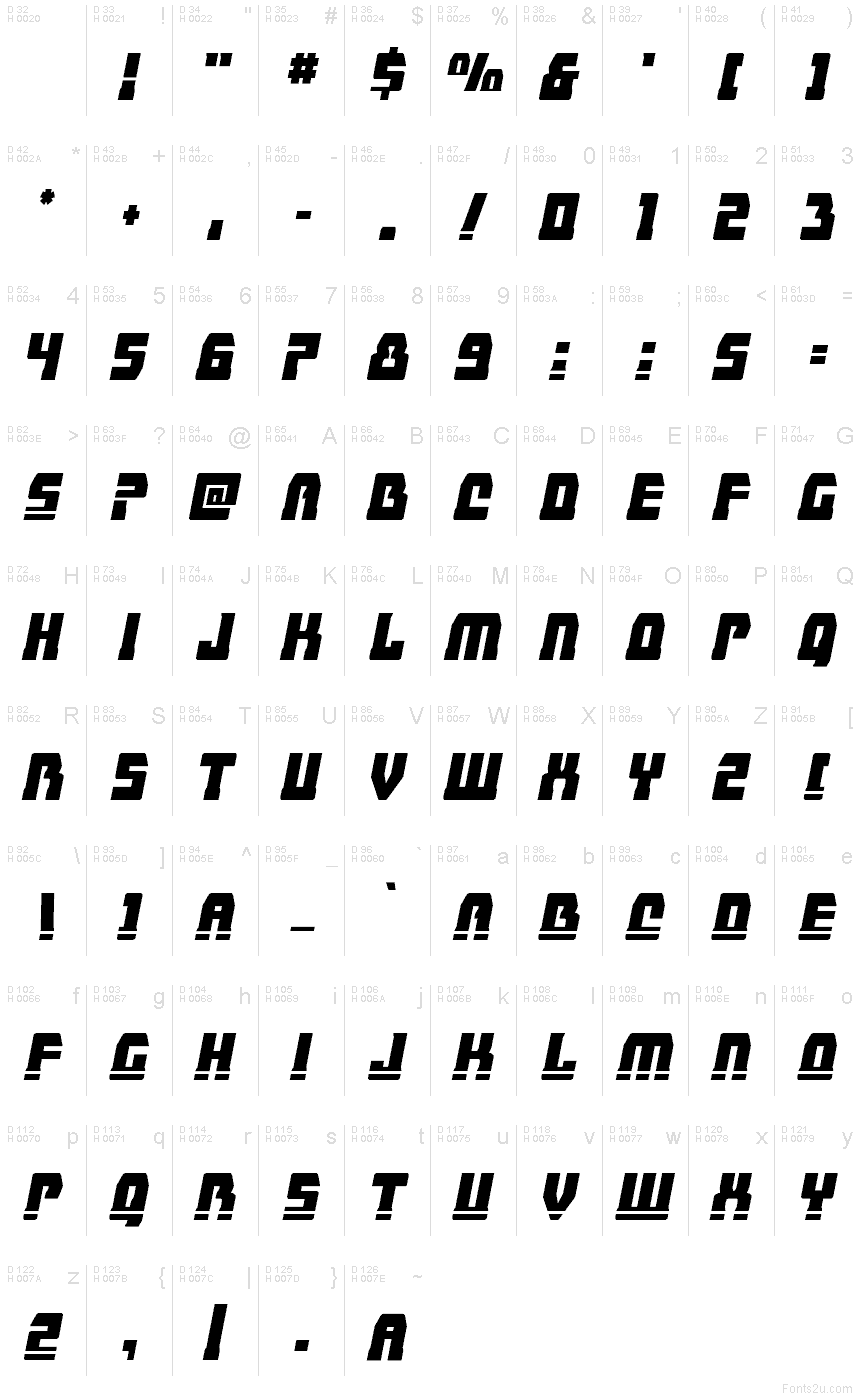
Librator Stripe Italic
Librator Stripe Italic font by Iconian Fonts is a techno font with an eye-catching bold design. This display typeface has a sleek and futuristic aesthetic that instantly captures attention. Suitable for headings and large-scale texts, its modern angular shape guarantees to leave an impact. The diagonal lines and heavy characters make for quite the exquisite visual addition.